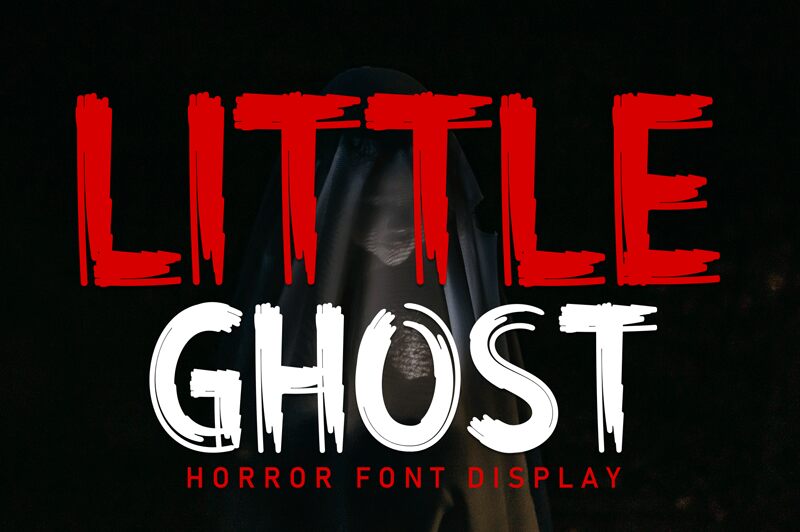
Little Ghost font by Andi Moz captures a terrifying, spooky, and scary appearance for any of its media applications. Including some vintage elements with small cuts, notches, and sometimes sharp edges - this distressed graphic eliminates regularity and symmetry. Additionally, a comic-like vibe inspired the playful letter forms further making them suitable for multiple Halloween-themed projects.